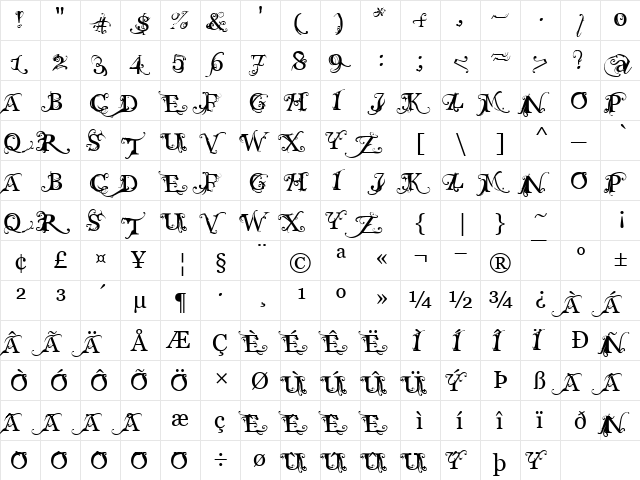
MACABRA Regular
Design Context for MACABRA Typeface
MACABRA is a composed and adaptable typeface that performs quietly and consistently across a wide range of design contexts.